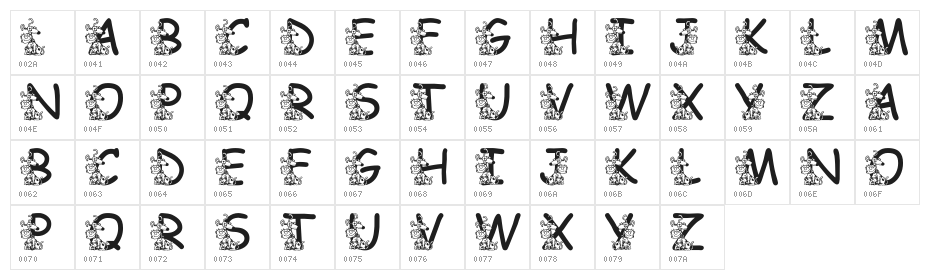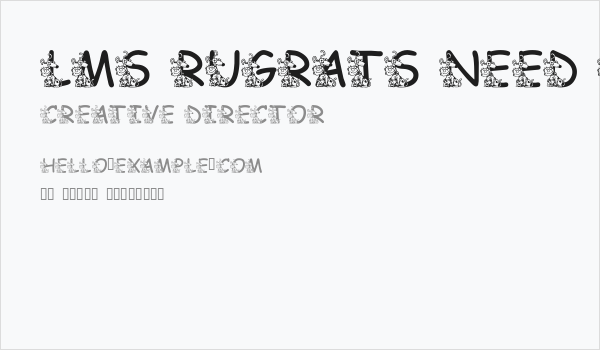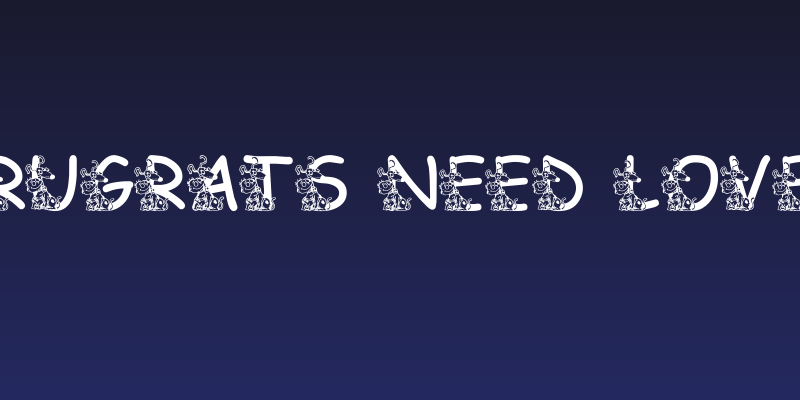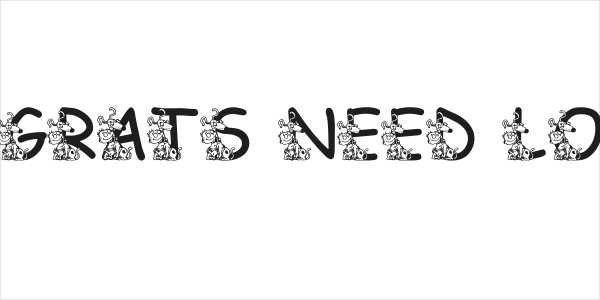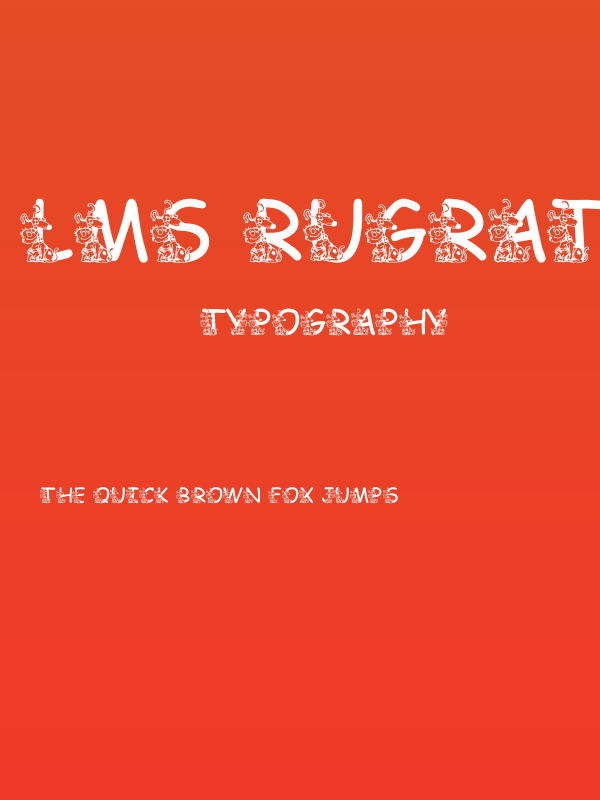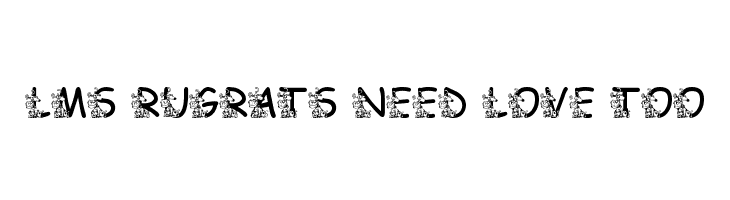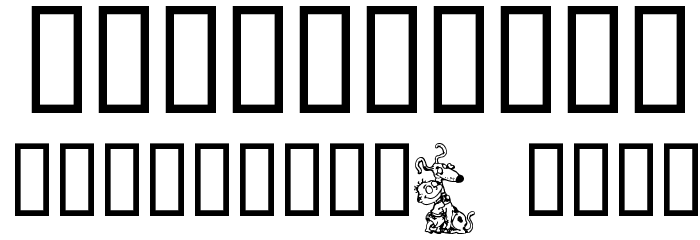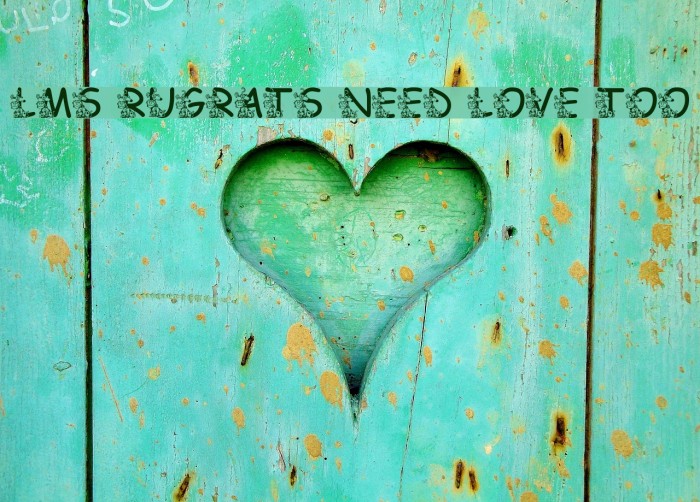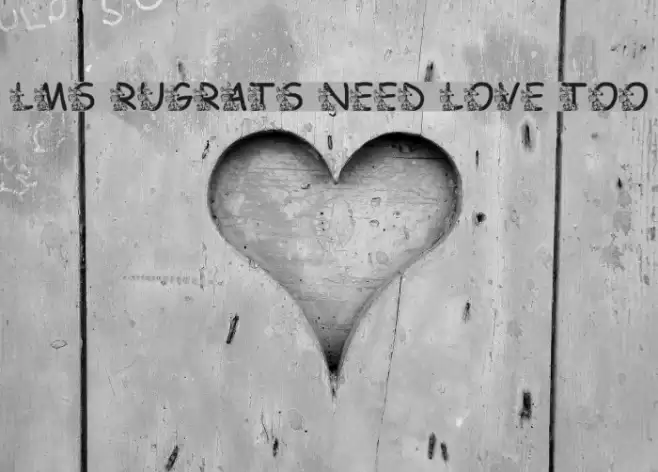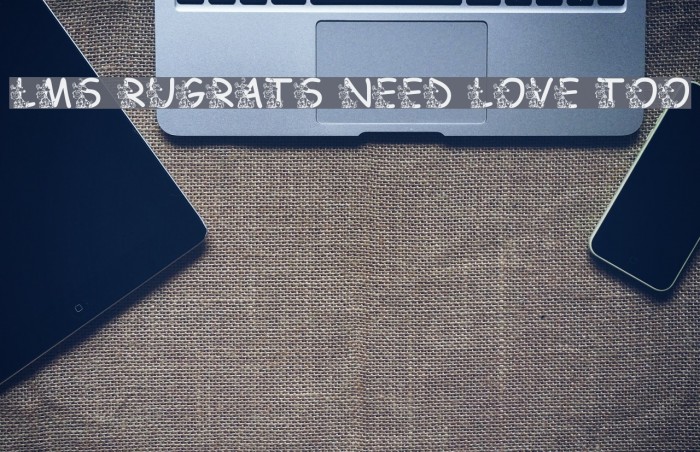
LMS Rugrats Need Love Too Font
LMS Rugrats Need Love Too Description
This playful and whimsical font features cartoon characters integrated into each letter, creating a lively and engaging design. The uppercase letters are bold and rounded, with each character interacting with the letterform in a unique way. The font is highly decorative, making it ideal for projects that require a fun and youthful aesthetic. The characters are consistent in style, maintaining a cohesive look throughout the alphabet. This font does not include lowercase letters or numbers, focusing solely on uppercase letters with character embellishments.
| Overall Style | Playful, Whimsical |
| Proposed Projects | Ideal for children's book covers, playful posters, birthday invitations, and any project requiring a fun, animated style. |